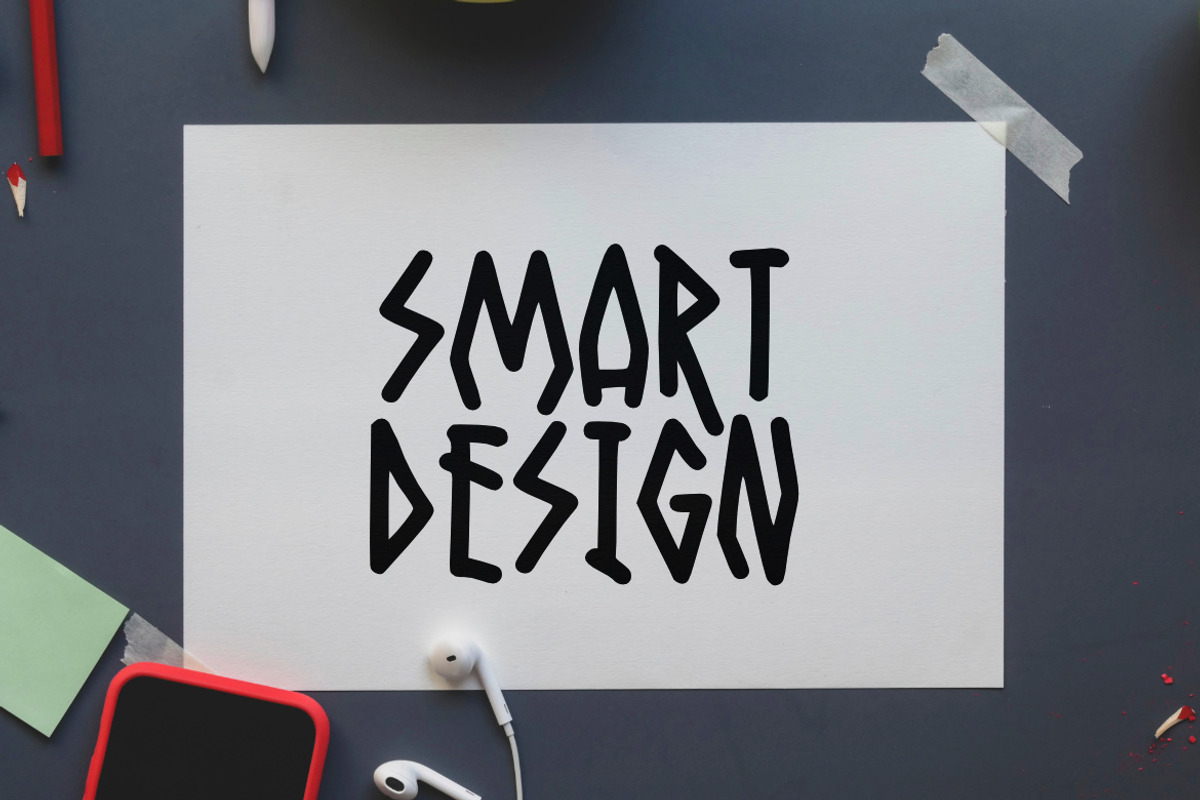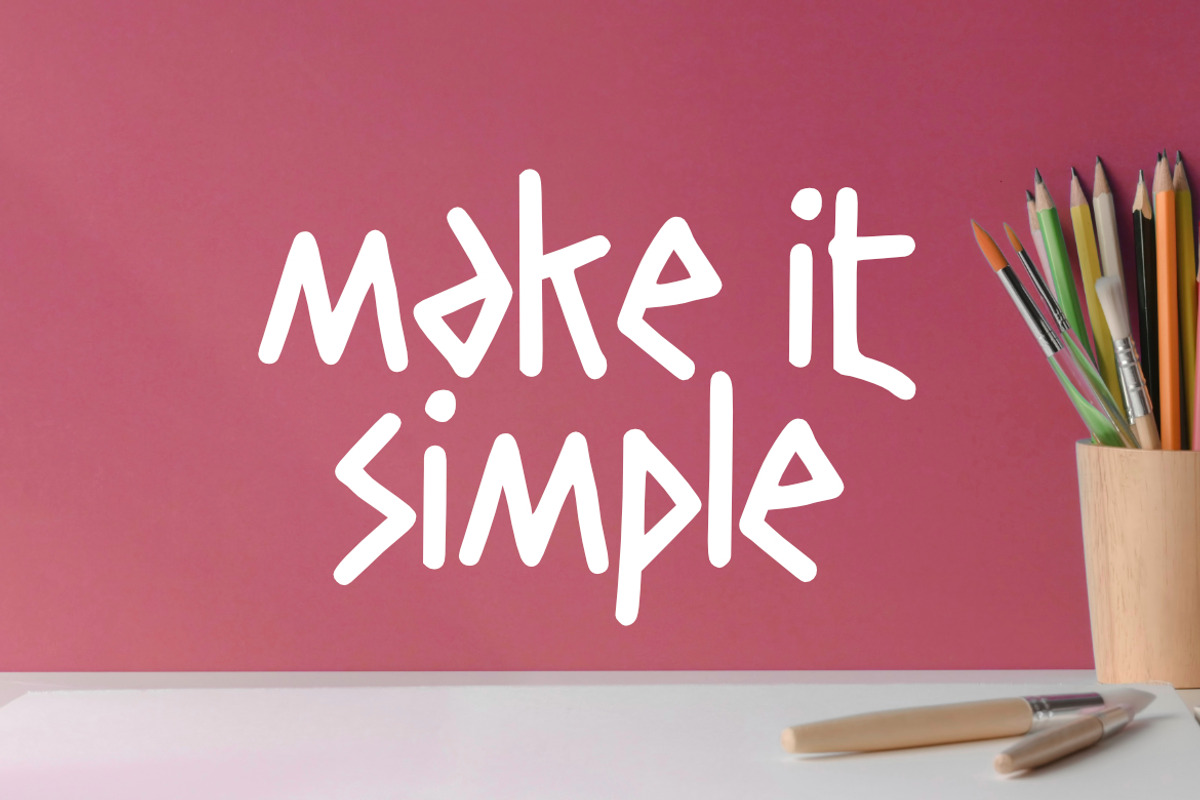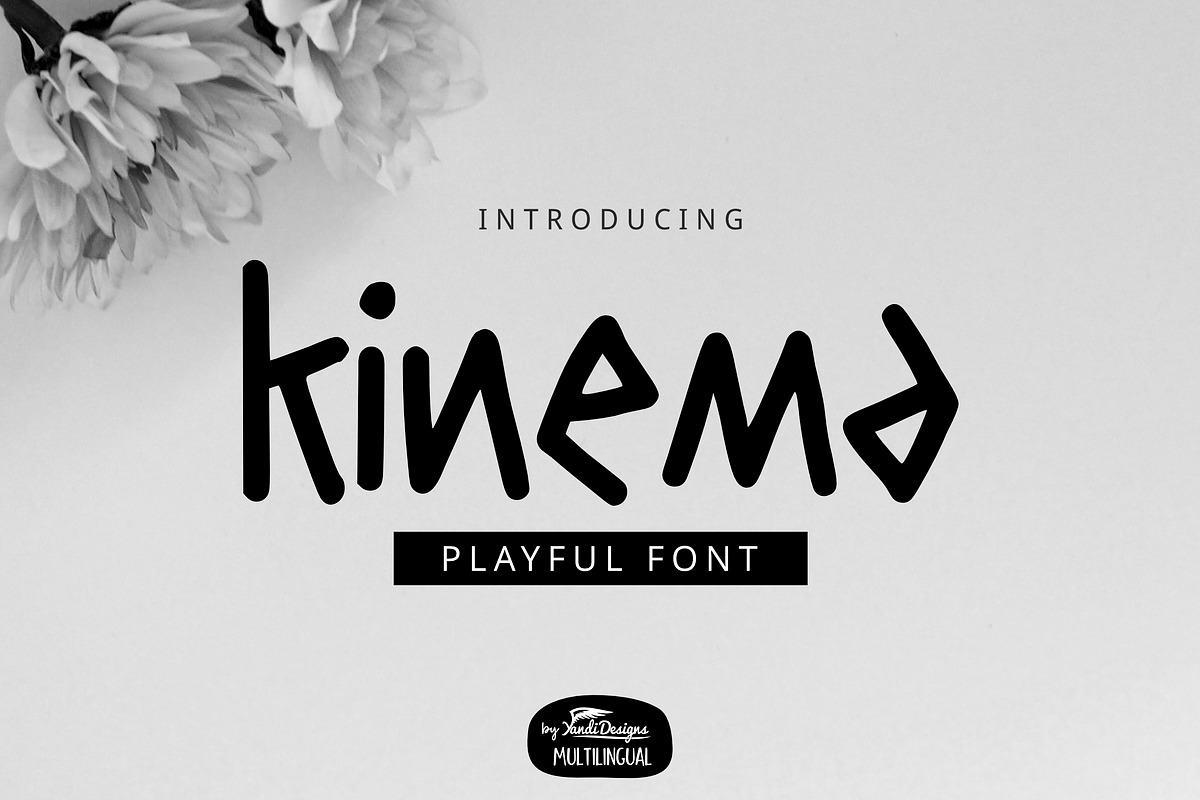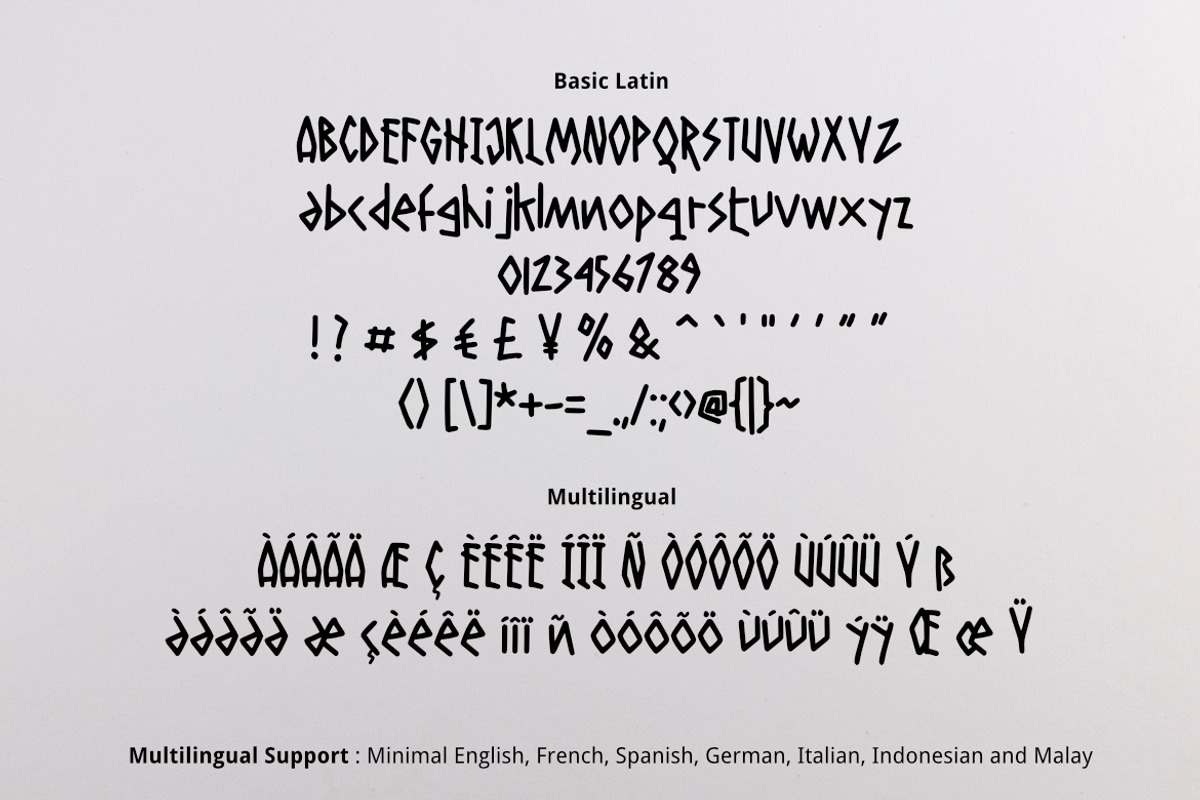
Kinema Font
Kinema Font is simple cute playful multipurpose handmade font, suitable for many project children book, quotes, logo , heading , title etc.
Basic Latin (Standard English character , number, symbol) Multilingual Support (minimal English, French, Spanish, German, Italian, Indonesian, Malay)